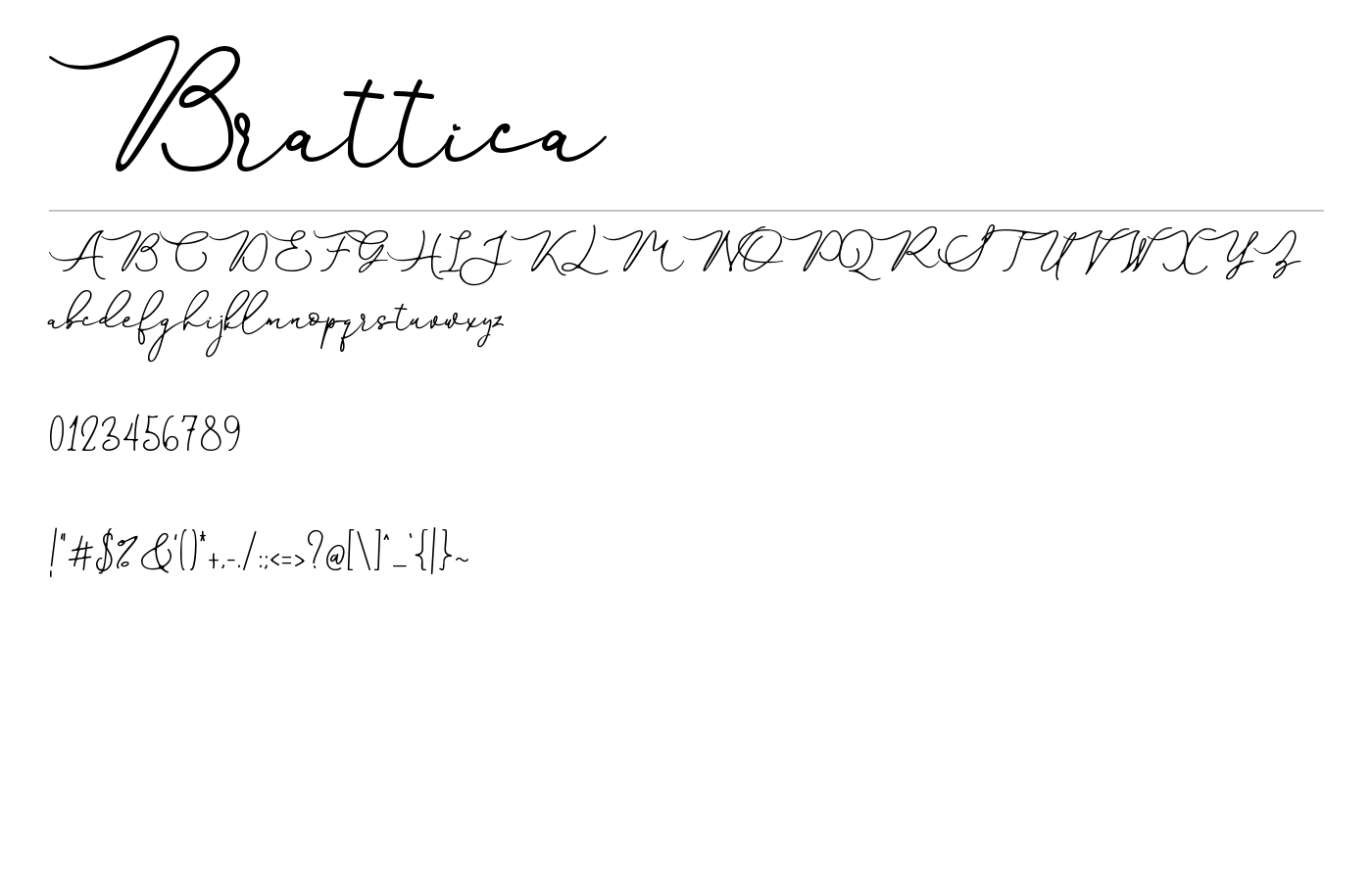
Brattica is an elegant handwritten script font characterized by its delicate, flowing strokes and a light, airy feel. Its thin line weight and graceful cursive letterforms make it perfect for sophisticated, romantic designs such as wedding invitations, fashion branding, and upscale packaging. This font’s refined style communicates a sense of charm and personalization, ideal for headlines or decorative accents where a touch of elegance is desired.
Brattica Font
About Brattica Font
| Font family | Brattica Font |
| Designer | Aldedesign 2019 |